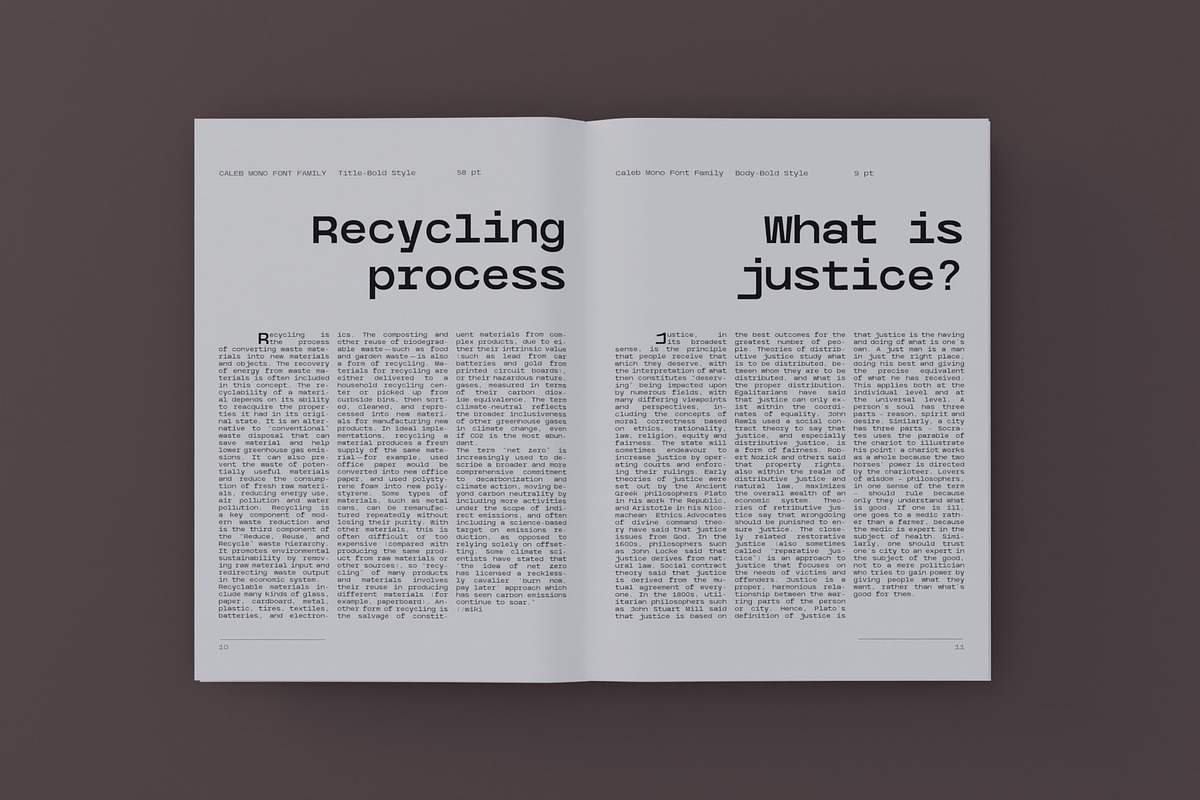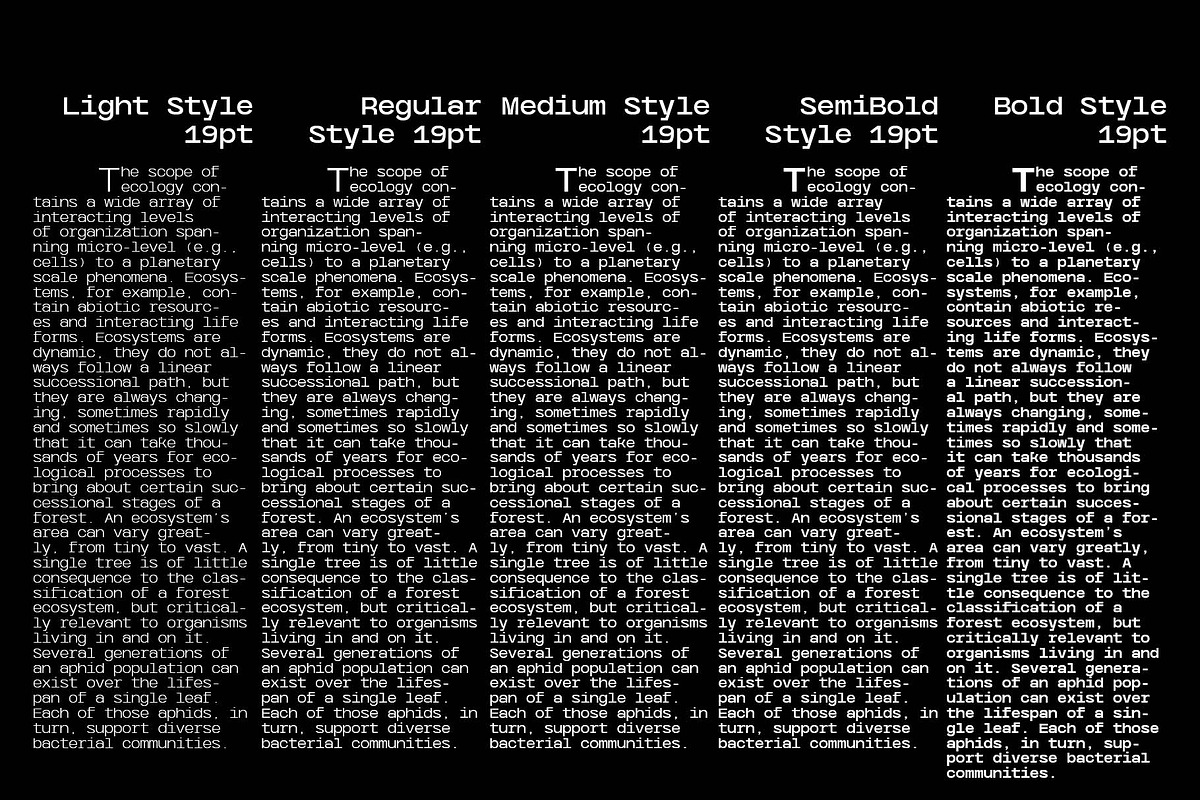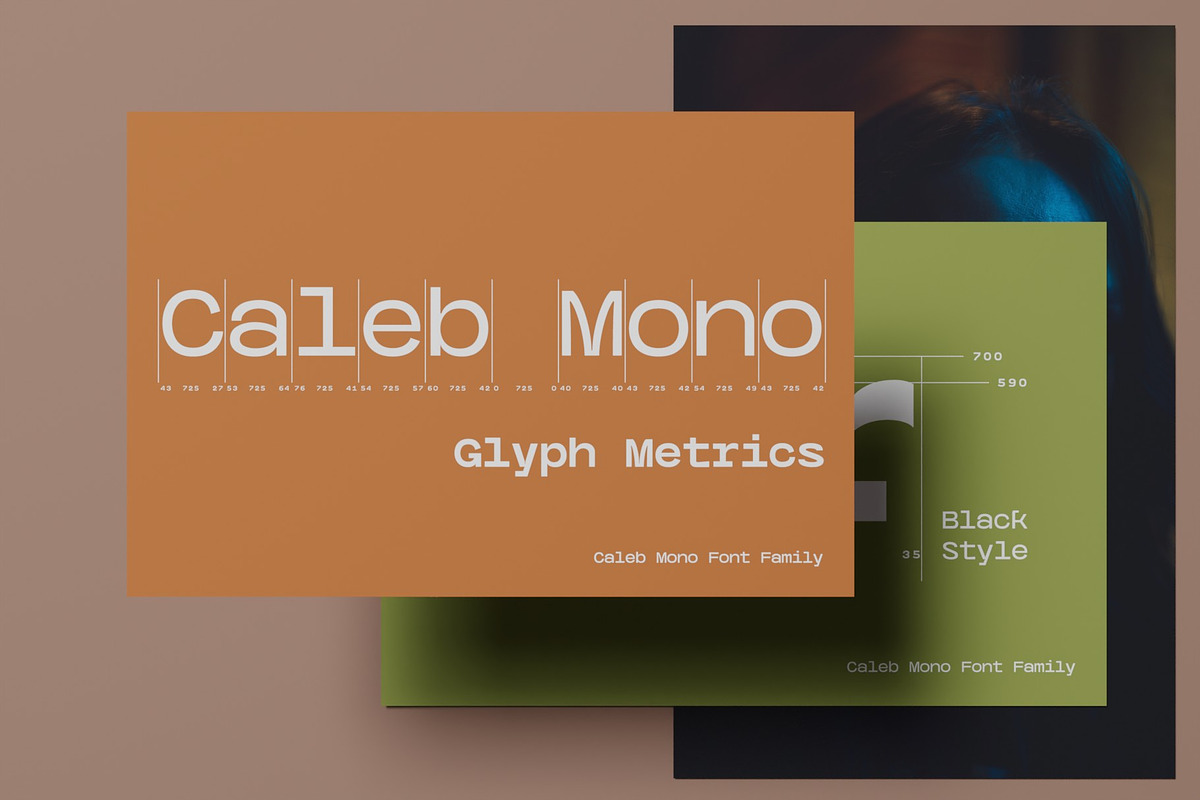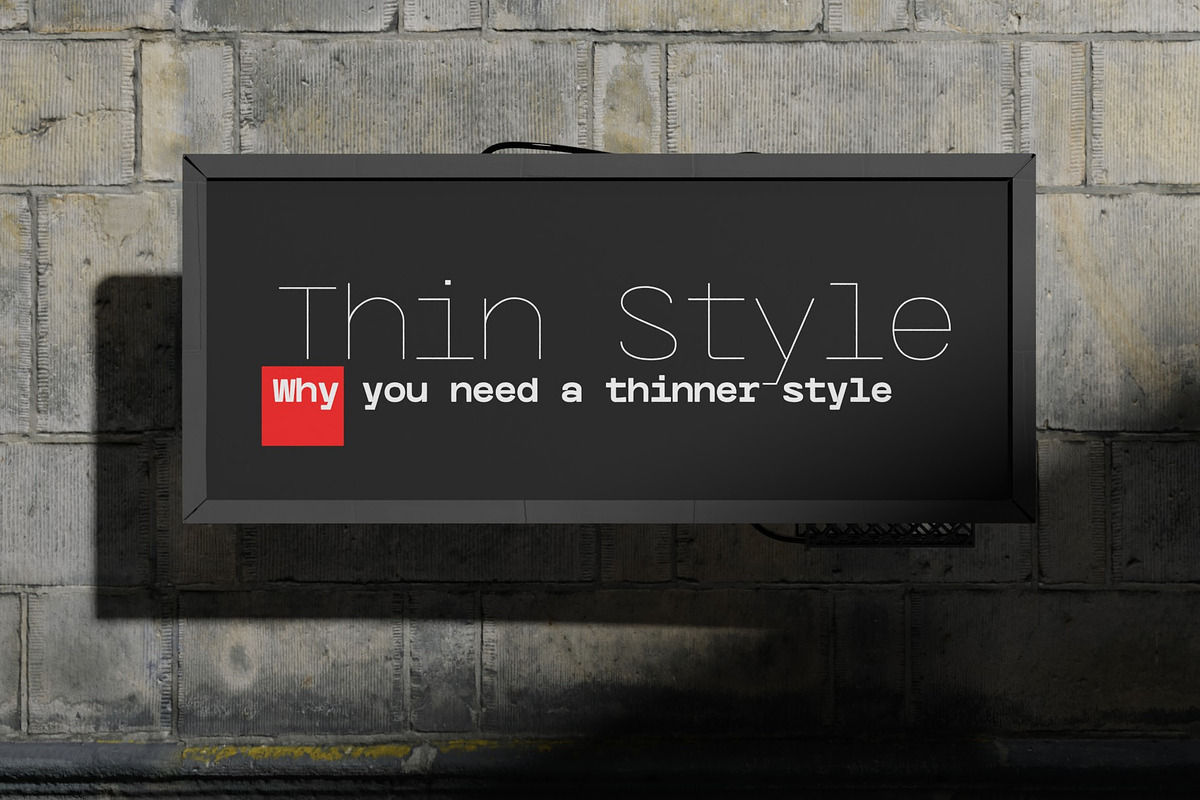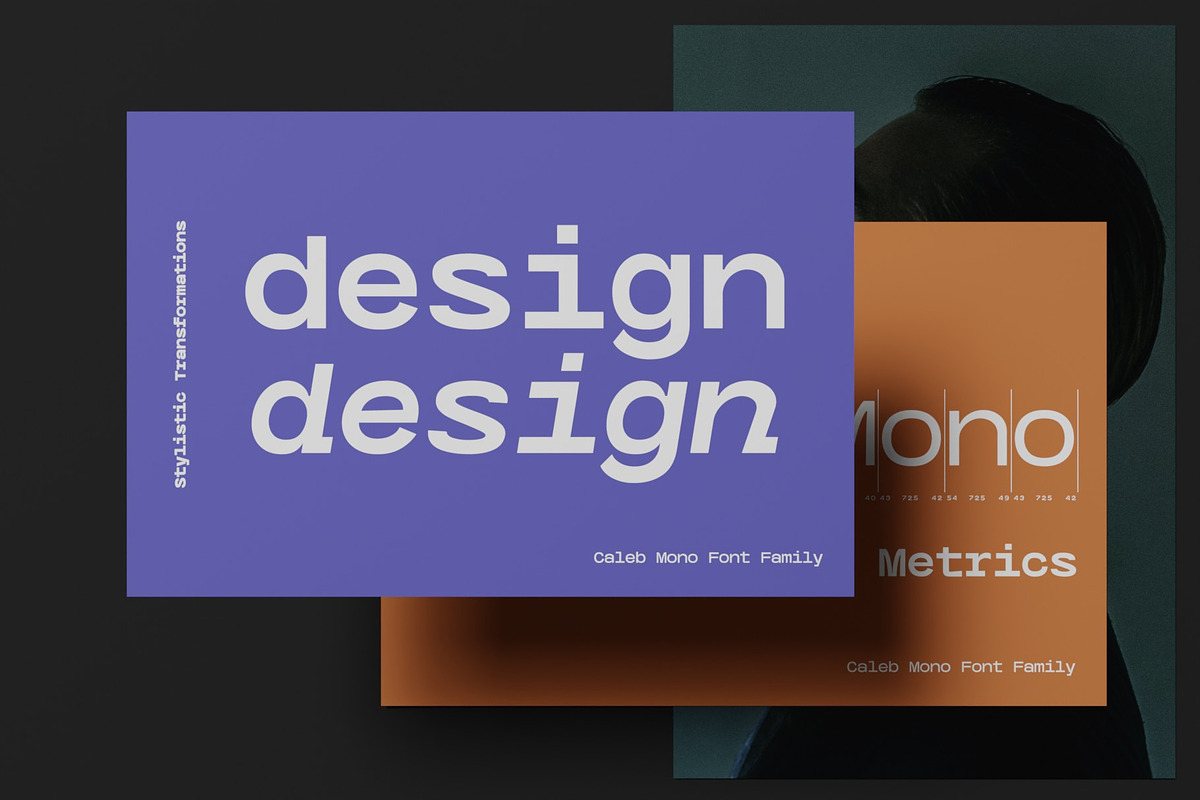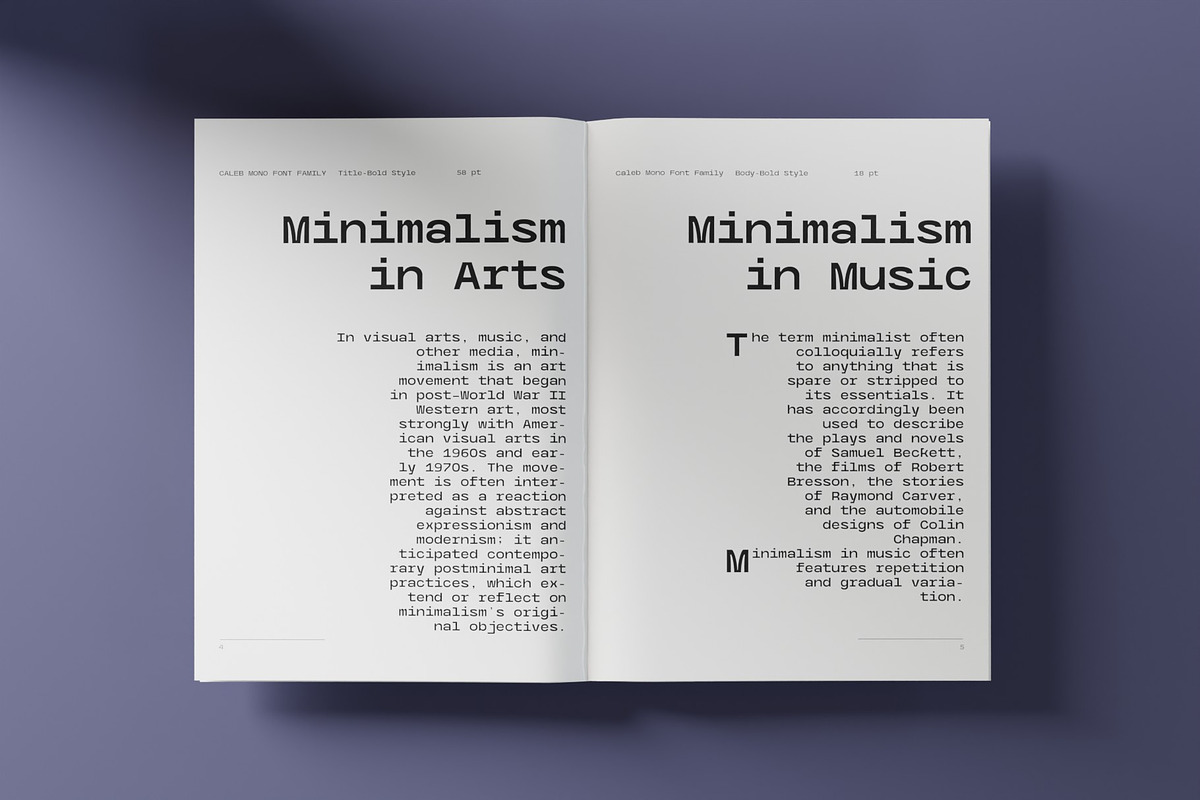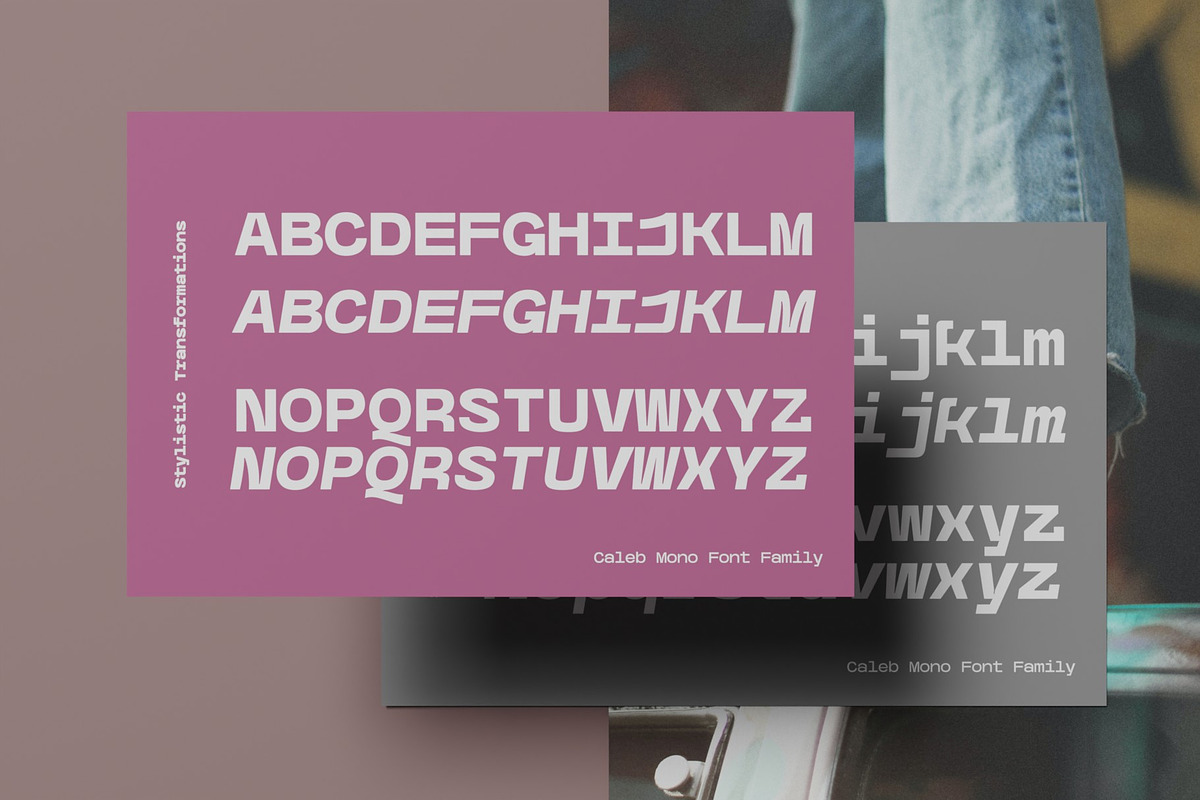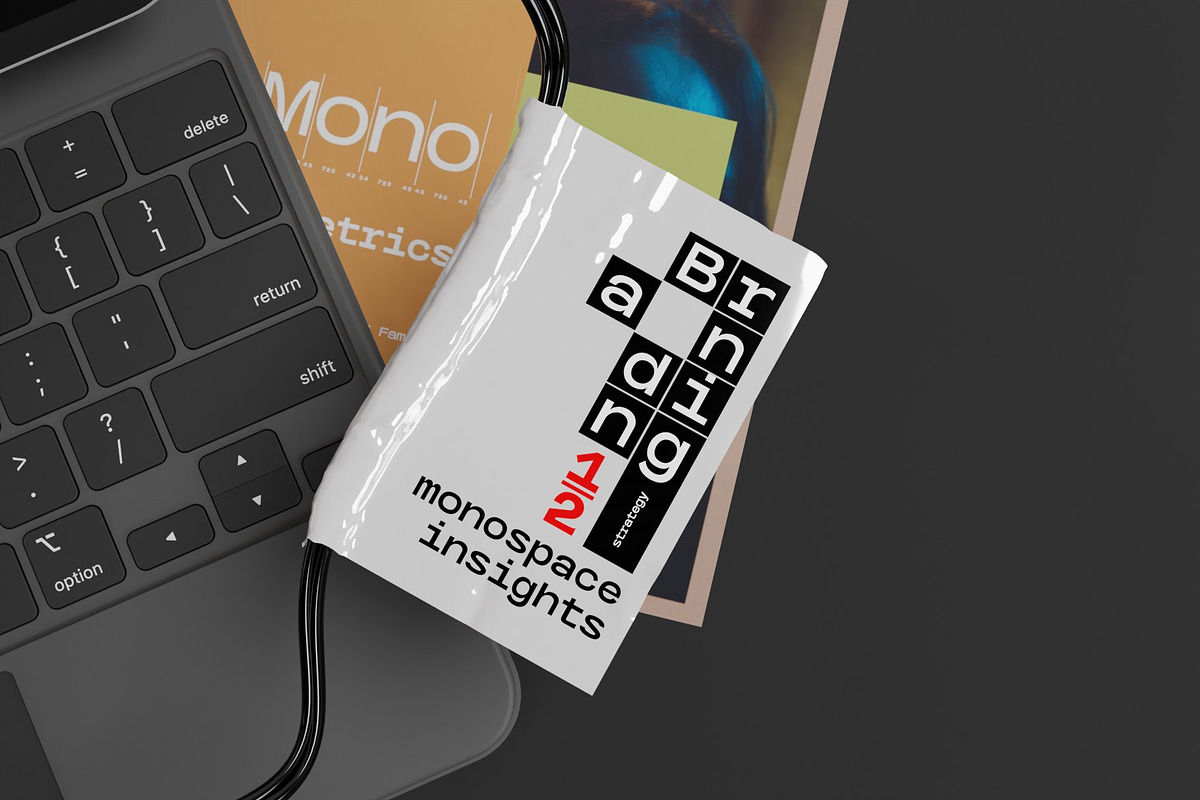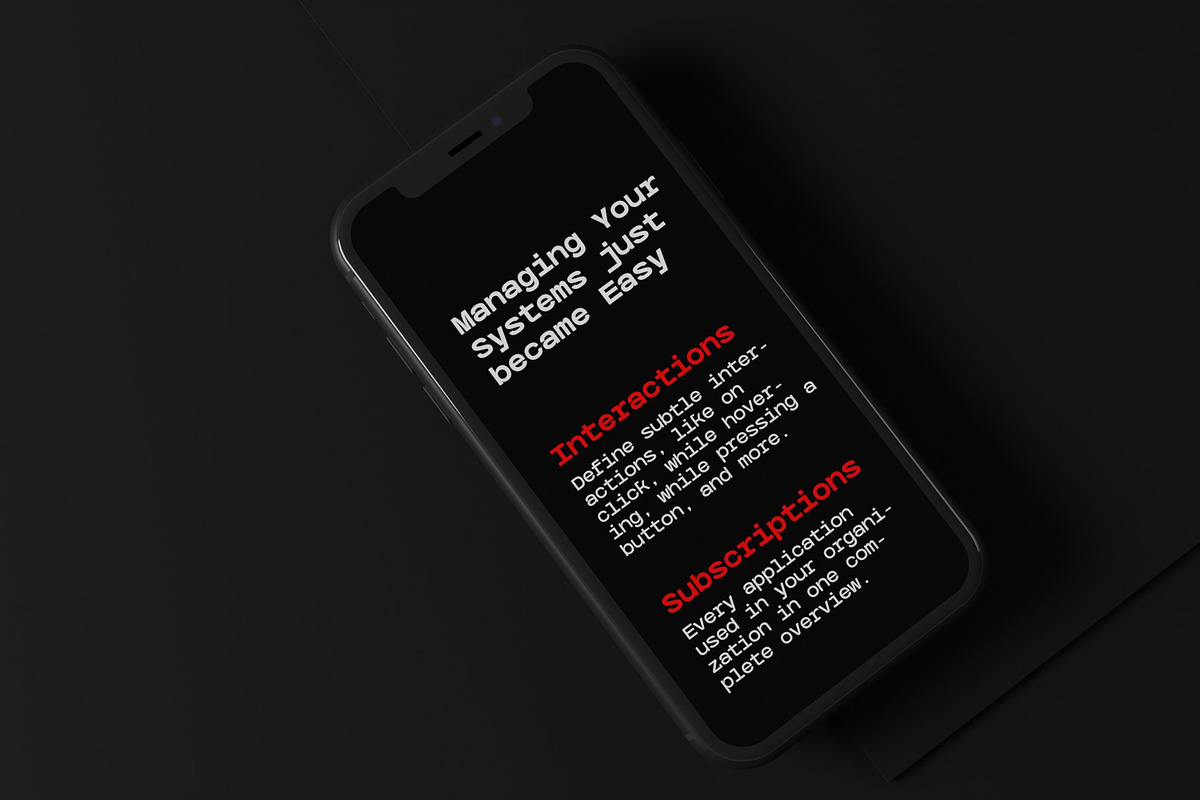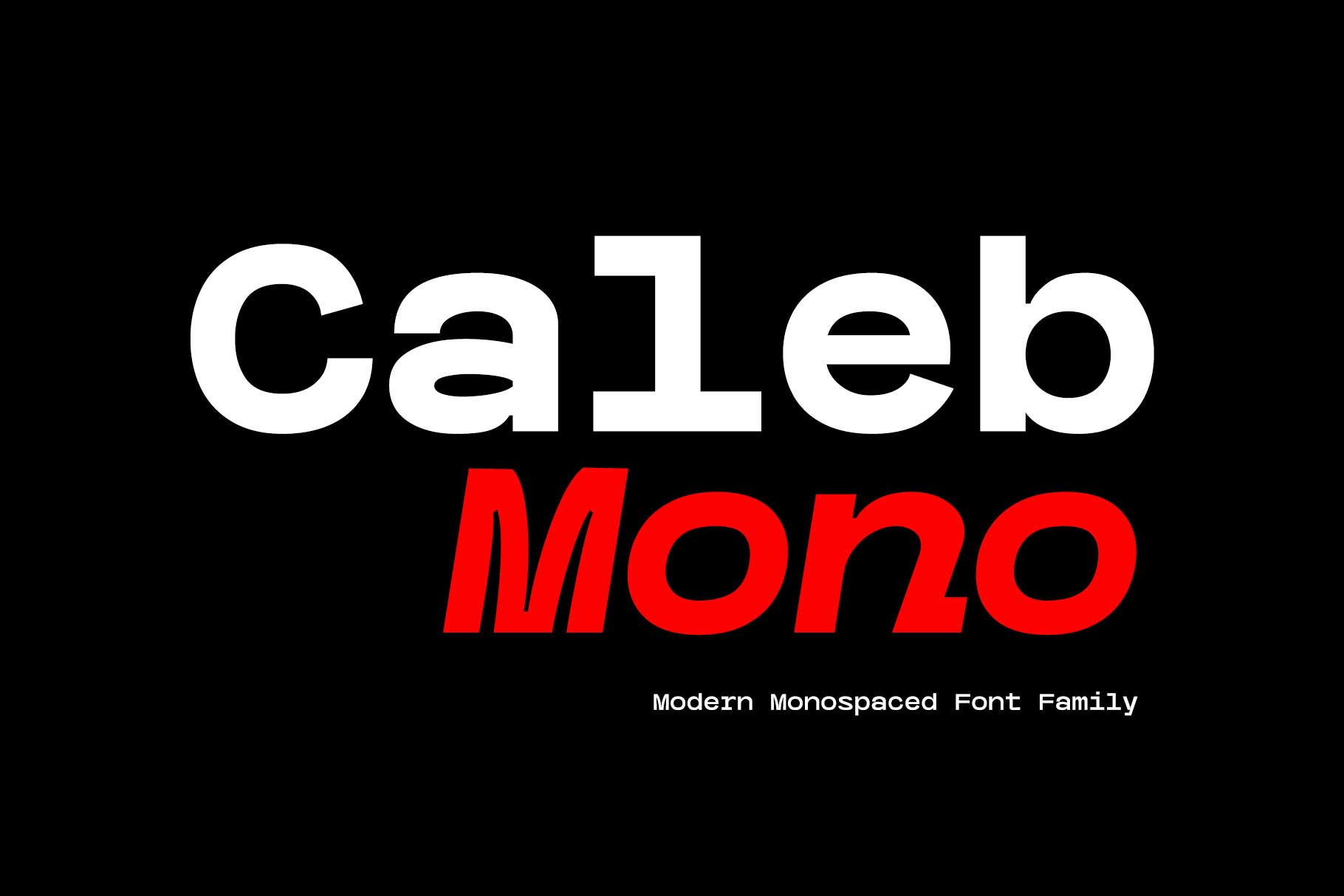
Caleb Mono Font Family
It is originally inherited from Caleb Grotesk - https://crmrkt.com/v4P9pD
And, It is a reinterpretation of the proportional and grotesque sensibility of Glphs with a more modern and rarity feeling.
Monospace fonts are a great choice for any designer who wants to create a retro, and minimalist feel.
The disadvantages of ambiguous readability due to its wide width and mechanical placement are clearly present, but still attractive and elegant.
To overcome these shortcomings, this font family gave variable side bearing values to each glyph and adjusted the width of the glyphs themselves.
It is designed with a more human sensibility.